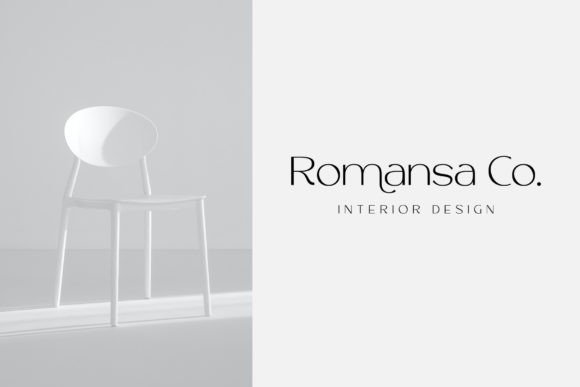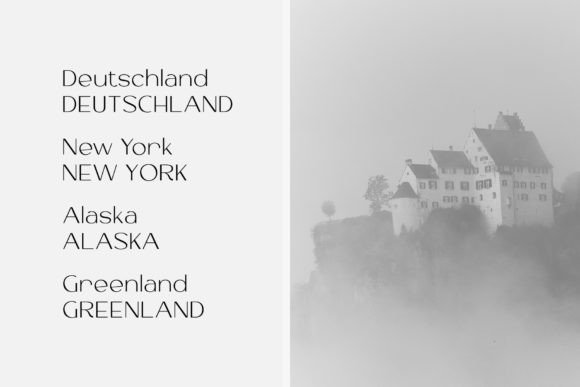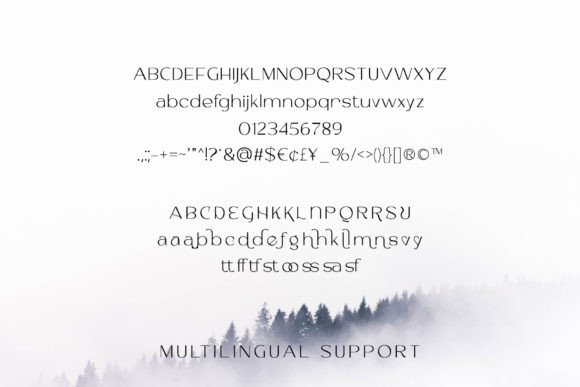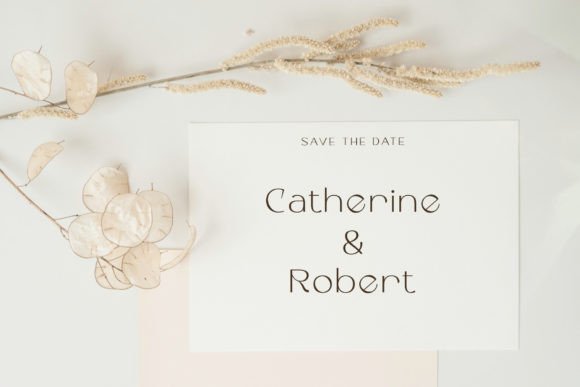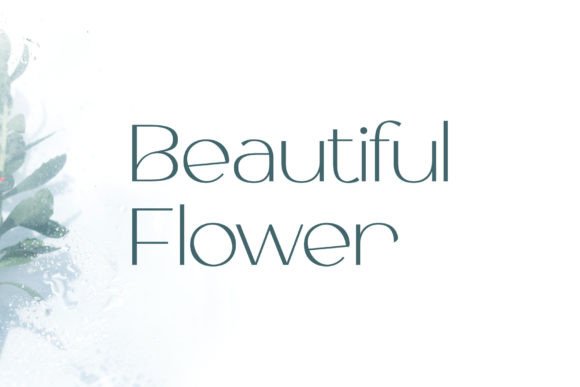
Introduction to Shade Sans Font
The moment of truth has finally arrived – you’ve landed the perfect design project, but the perfect font is still elusive. As a designer, you know the importance of a well-chosen font in elevating your creative project. You’ve scoured the web for hours, searching for the perfect sans-serif font that will make your design stand out.
Enter Shade Sans Font – a clean, modern, and versatile sans-serif font that’s perfect for branding projects, logos, and advertisements. With its sleek design and high-quality aesthetic, Shade Sans Font is a valuable resource for designers looking to take their projects to the next level.
Key Features of Shade Sans Font
- High-quality design resource for creative projects, ideal for modern and minimalist designs
- Unique characteristics include its clean lines, geometric shapes, and subtle texture, making it a versatile choice for various design projects
Honest Review: Shade Sans Font
As a designer, I’m always on the lookout for high-quality design resources to enhance my creative projects. I recently had the chance to work with the Shade Sans Font, and I’m excited to share my thoughts with you.
- ✨ Clean and modern design aesthetic: The Shade Sans Font has a sleek and sophisticated feel that works perfectly for contemporary branding and design projects.
- ✨ High-quality glyphs: The font’s high-quality glyphs ensure that text remains clear and legible, even at small font sizes.
- ⚠️ Limited language support: The font may not support all languages, which could be a issue for designers working on projects that require multi-language support.
Overall, I think the Shade Sans Font is a solid choice for designers looking for a clean and modern sans-serif font. While it may have some limitations, its high-quality design and free download make it a valuable resource for any creative project.
Shade Sans Font
The Shade Sans Font is perfect for:
Business presentations and reports
Marketing materials and brochures
Website and app design
Alternatives to Shade Sans Font
Abril Fatface is a high-quality serif font suitable for creative projects requiring elegance and sophistication. It is ideal for use in titles, headings, and body text where a classic, timeless look is desired. Abril Fatface is a free download and can be used as a design resource for various applications.
Comparison to Shade Sans Font: Abril Fatface is a serif font, whereas Shade Sans Font is a sans-serif font. Abril Fatface has a more traditional and classic feel, making it suitable for projects that require a touch of nostalgia or sophistication.
Montserrat is a clean and modern sans-serif font that is perfect for use in creative projects requiring a professional and sleek look. It is ideal for use in titles, headings, and body text where a minimalist and modern aesthetic is desired. Montserrat is a free download and can be used as a design resource for various applications.